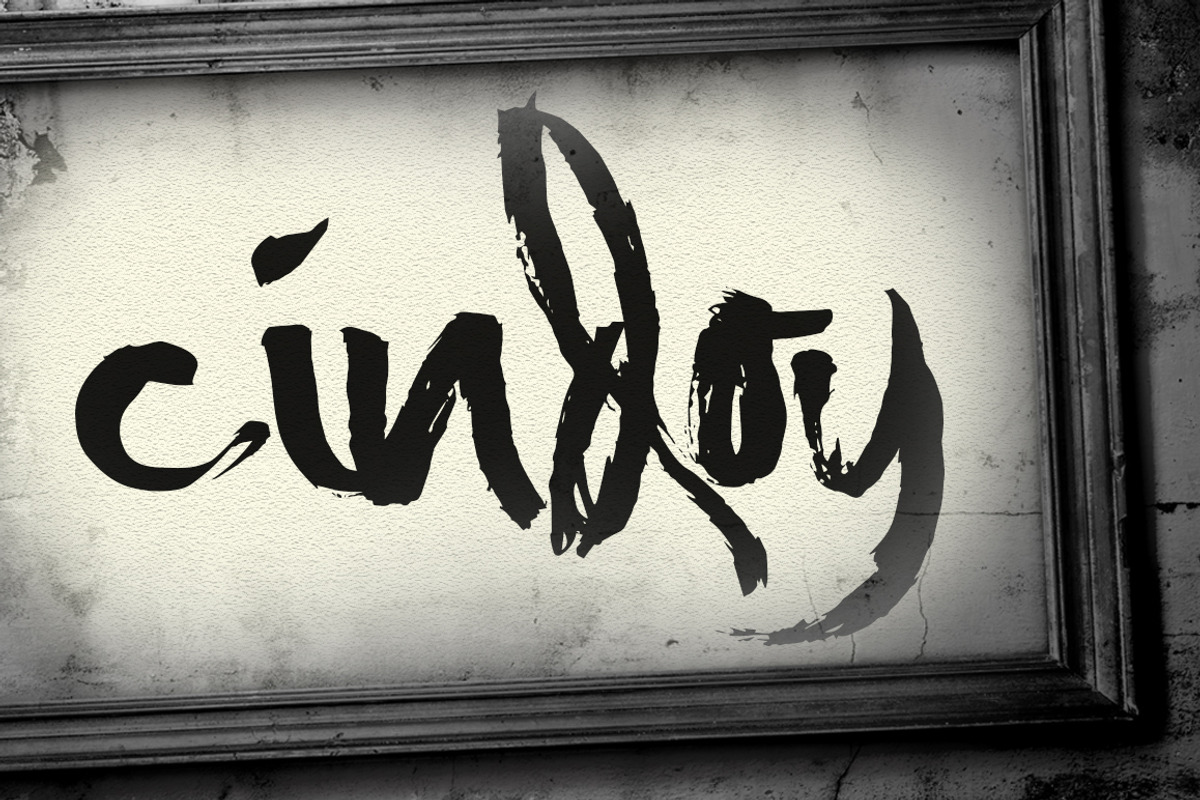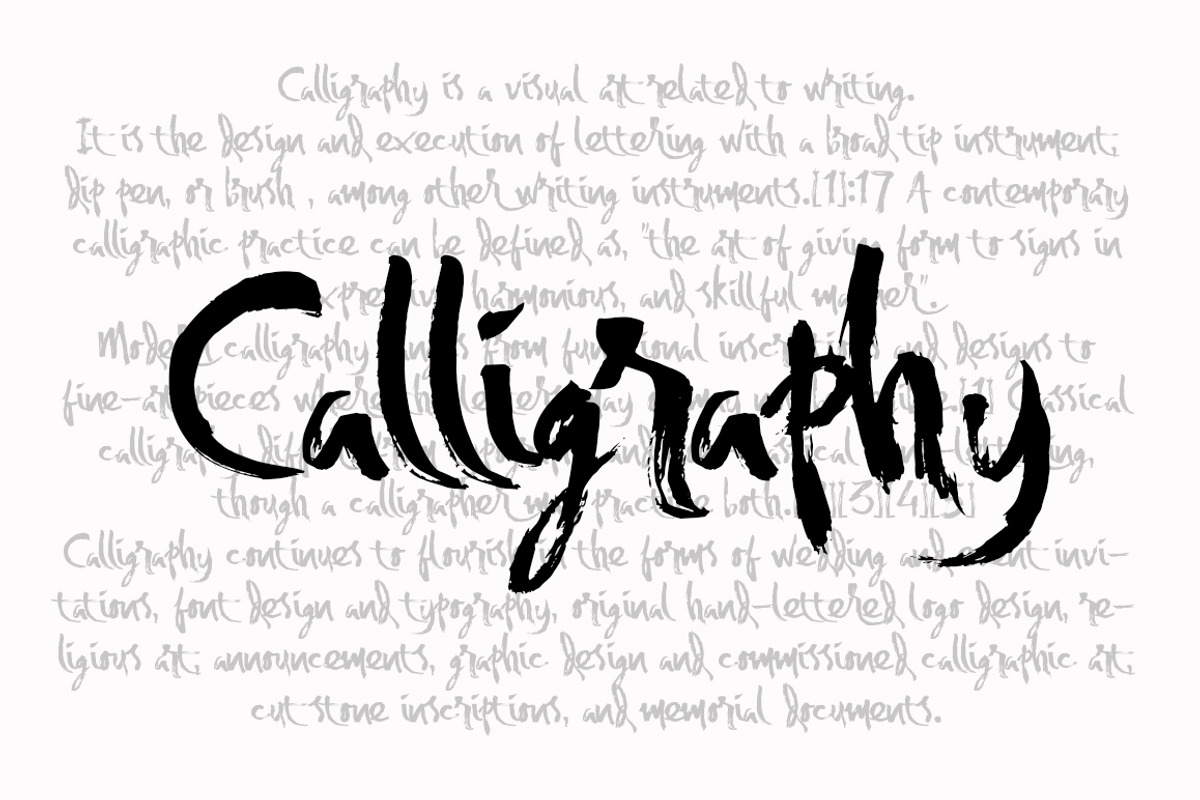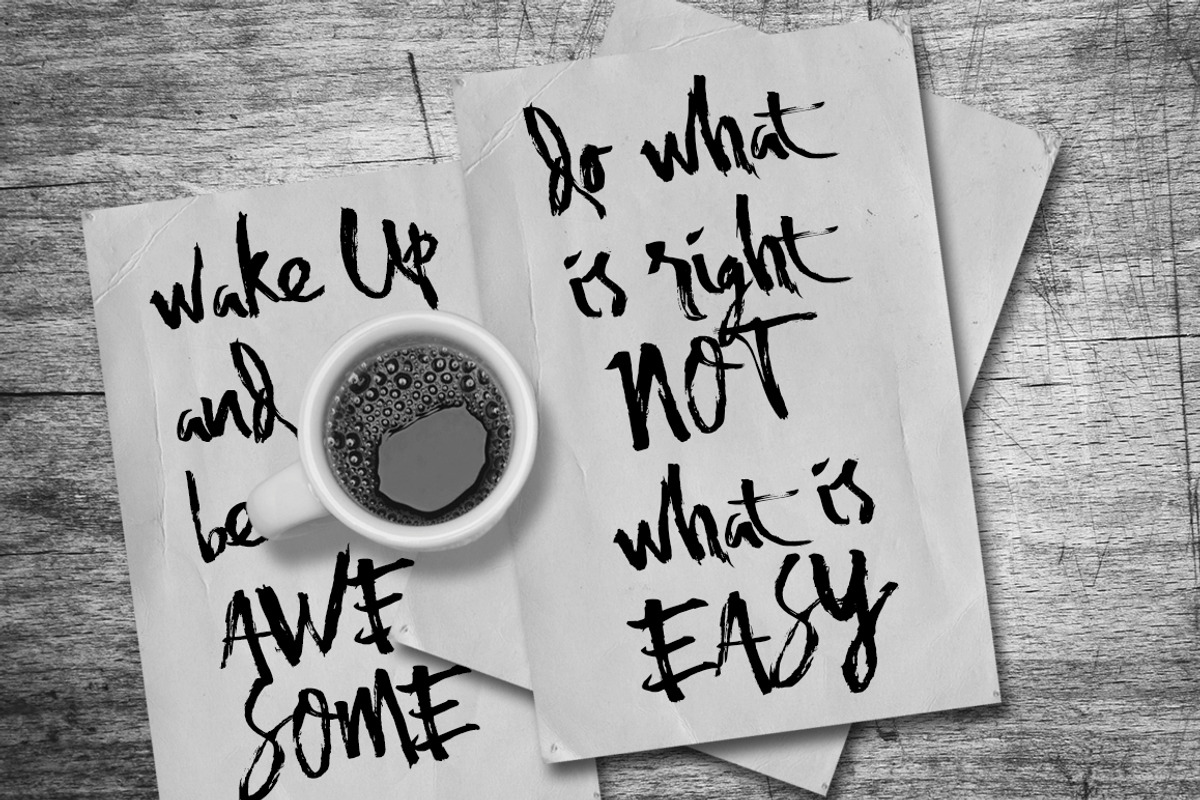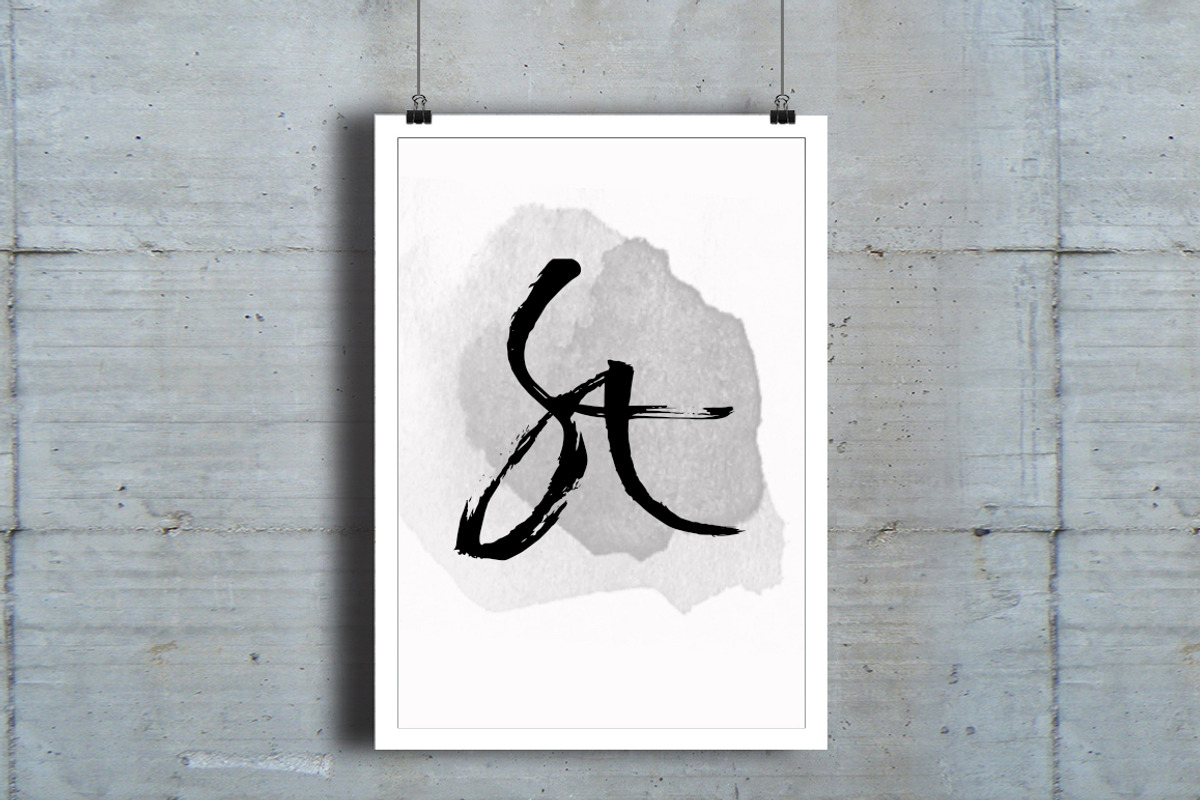
itaki - calligraphic typeface
itaki - calligraphic typeface by Incools is a font selected for branding, posters, packaging, typography.
Why itaki - calligraphic typeface is worth a look
itaki - calligraphic typeface by Incools fits naturally into Branding, posters, packaging, typography.